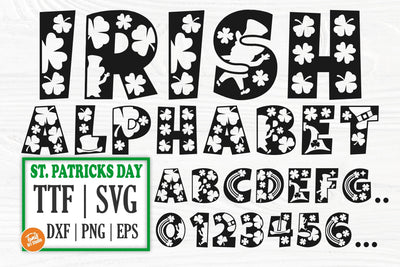
Add a touch of Irish charm to your projects with this versatile Shamrock Font. Perfect for all your St. Patrick's Day crafts, this Clover Font will bring a festive feel to any design. Use this unique Irish Font for monogram TTF projects or create fun alphabet SVG art. Instantly download this Font for Cricut and get creative with your next project!